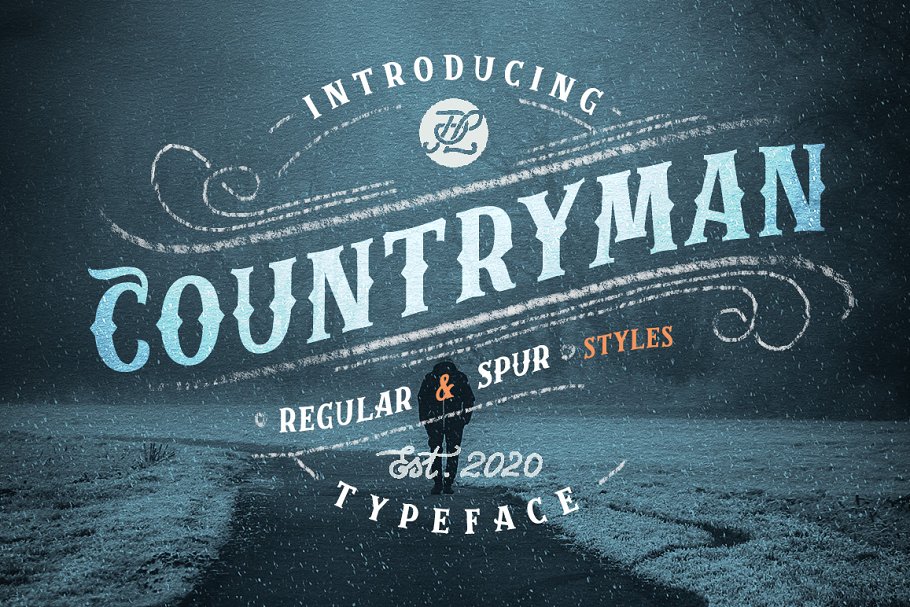
Introducing Countryman, the perfect Western type font for your next creative project. Created by Paul Lesser, this slab serif font family features two styles - Regular and Spur - inspired by the classic old letterings of the Wild West.
As the designer's very first font, Countryman is the result of many hand-lettering designs, making it a unique and authentic typeface that will elevate any design project. With only uppercase letters incorporated, this font is perfect for headlines, flyers, labels, and tags.
But that's not all. Countryman also includes multilingual glyphs, making it a versatile choice for designers all over the world. And with the addition of a web font, you can be sure that your website will stand out from the crowd.
Whether you're designing for a Western-themed project or simply want to add a touch of rustic charm to your designs, Countryman is the font for you. So why not download it today and bring a touch of the Wild West to your next project?